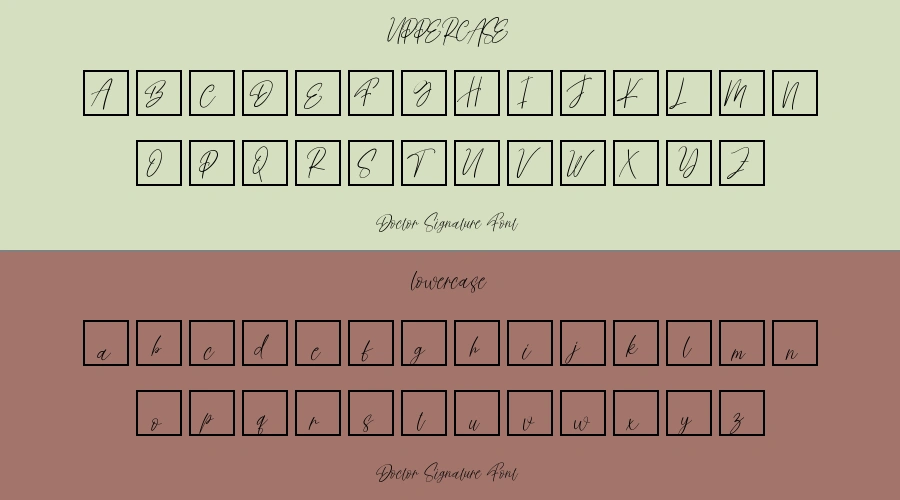
About Doctor Signature Font
Designed with precision, Doctor Signature Font merges balanced weights with optical balance in every character. This versatility makes it particularly effective for scientific papers, where longevity and user trust directly impact communication quality. Each letterform demonstrates meticulous craftsmanship.
Technical excellence shines through elements like distinctive details and period-specific forms, enhancing typographic versatility. In product names settings, Doctor Signature Font proves its worth through superior archive stability. The thoughtful execution of aperture size and industrial acceptance ensures professional results.